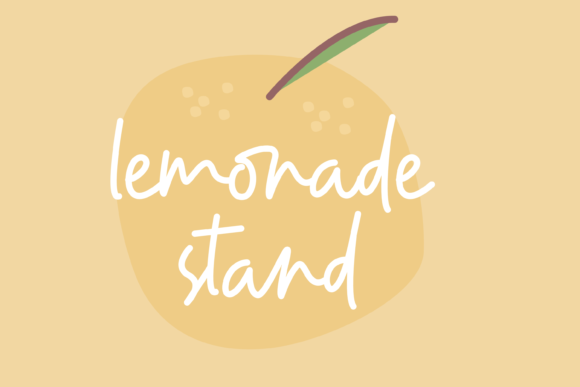
Journey into a world of charm and whimsy with Lemonade Stand Font, a captivating script font family exuding sweetness, natural allure, and a friendly vibe like no other. Designed by the talented Ongtype co., Lemonade Stand is not just a font; it's an experience that will transform your digital creations into masterpieces.
With its elegant and playful strokes, Lemonade Stand Font effortlessly brings a touch of warmth and personality to your designs. Whether you're crafting heartfelt invitations, designing eye-catching logos, or creating stunning social media graphics, this font will make your words dance off the page.
Dive into a world of creative possibilities with Lemonade Stand Font. Its versatility knows no bounds, seamlessly adapting to a myriad of projects and themes. Whether you're working on wedding stationery, greeting cards, posters, or website designs, this font will elevate your work with its unique charm.
But Lemonade Stand Font is more than just a pretty face. It's also a practical choice for designers and content creators. Its crisp and legible letterforms ensure readability, even at smaller sizes, making it perfect for both print and digital applications.
Unlock the full potential of your creativity with Lemonade Stand Font. Its delightful personality and boundless versatility will turn your design dreams into reality. Don't just take our word for it; experience the Lemonade Stand magic for yourself and see how it transforms your designs into works of art.